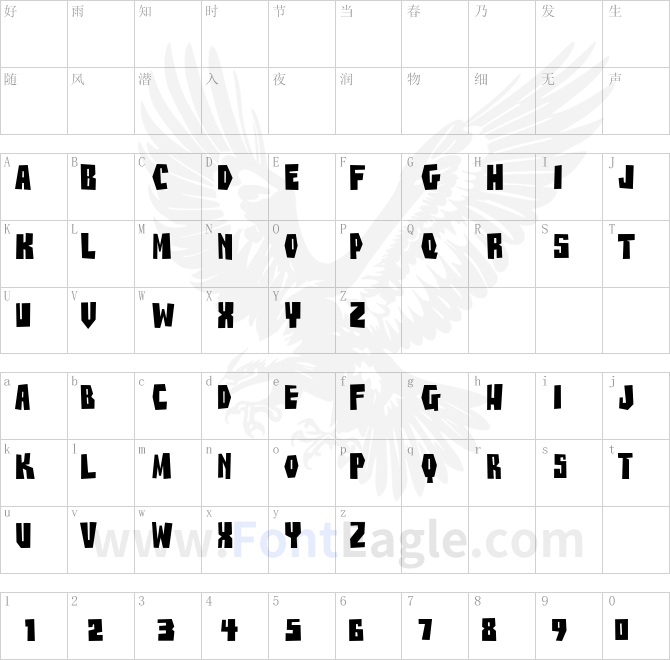
- Font name:BuzzSaw AOE
- Font Subfamily ID:Astigmatic(AOETI): BuzzSaw AOE: 2006
- Font Full Name:BuzzSaw AOE
- Font Version:Version 1.000 2003 initial release
- Postscript:BuzzSawAOE